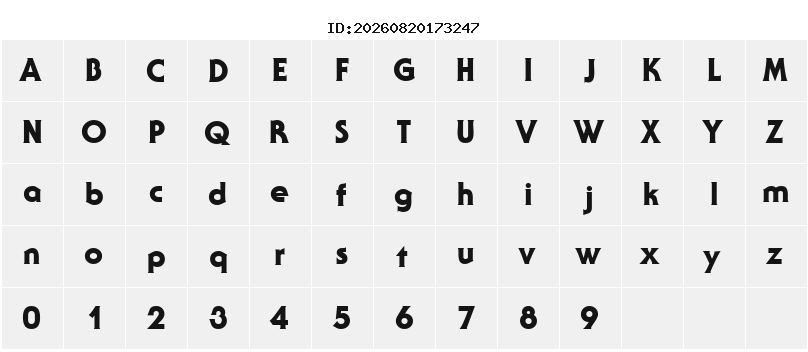
SerenadeTwoHeavy Preview
• Font Name: SerenadeTwoHeavy
• Full Font Name: SerenadeTwoHeavy-Regular
• PostScript Name: SerenadeTwoHeavy-Regular
About SerenadeTwoHeavy.ttf
SerenadeTwoHeavy.ttf is a modern, elegant sans-serif font designed for ultimate readability and visual harmony. Perfect for branding, headlines, web design, and print materials.